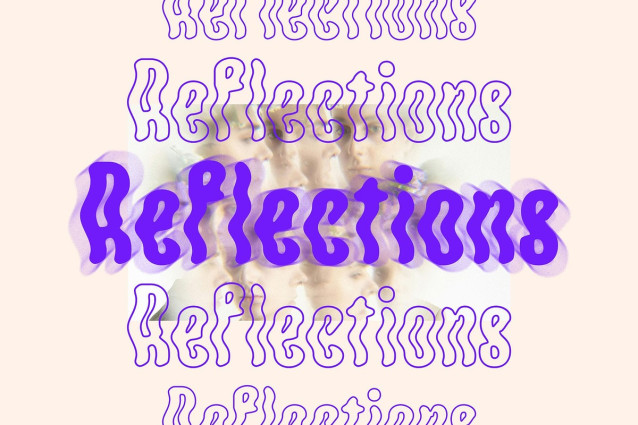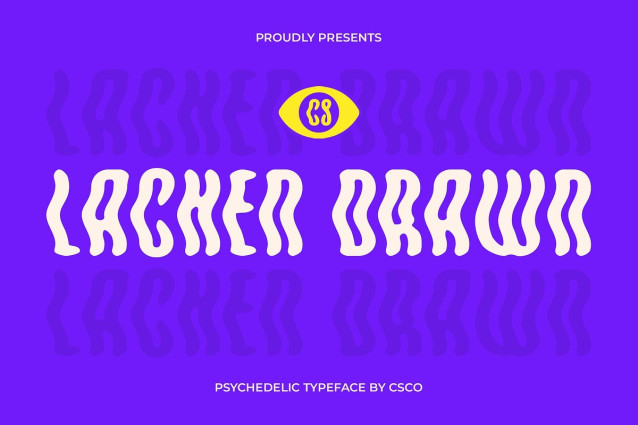
CS Lachen Drawn Font
CS Lachen Drawn Font is a modern display font that celebrates freeform creativity and experimental design. Its letterforms are inspired by psychedelic aesthetics, featuring unusual curves, imaginative distortions, and an unpredictable flow that breaks away from traditional structure. Every glyph is a visual expression of movement, as if captured in a constant dance of color, rhythm, and emotion.
Hand-Drawn Personality Meets Psychedelic Vibes The font’s drawn effect introduces a sense of warmth and individuality, giving each letter a handcrafted and human feel. Rather than striving for perfection, this quirky and striking font embraces imperfection and spontaneity, resulting in a style that feels alive, authentic, and deeply expressive.
A Funky and Retro-Modern Spirit With its funky, fluid shapes and almost musical flow, this font radiates cheerfulness and rebellious joy. Its bold, unconventional style is a nod to both retro counterculture and modern art movements, making it a perfect choice for designs that aim to convey freedom, emotion, and artistic boldness.
Perfect For Vibrant, Creative Projects Whether you’re designing music posters, event graphics, album art, expressive branding, or editorial spreads, this cheerful and expressive font brings a unique visual voice that commands attention. It’s ideal for any project that wants to capture the spirit of imagination, artistic exploration, and joyful rebellion.